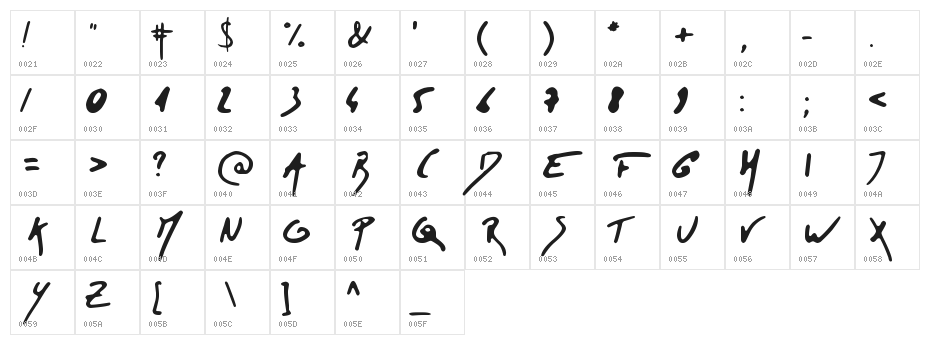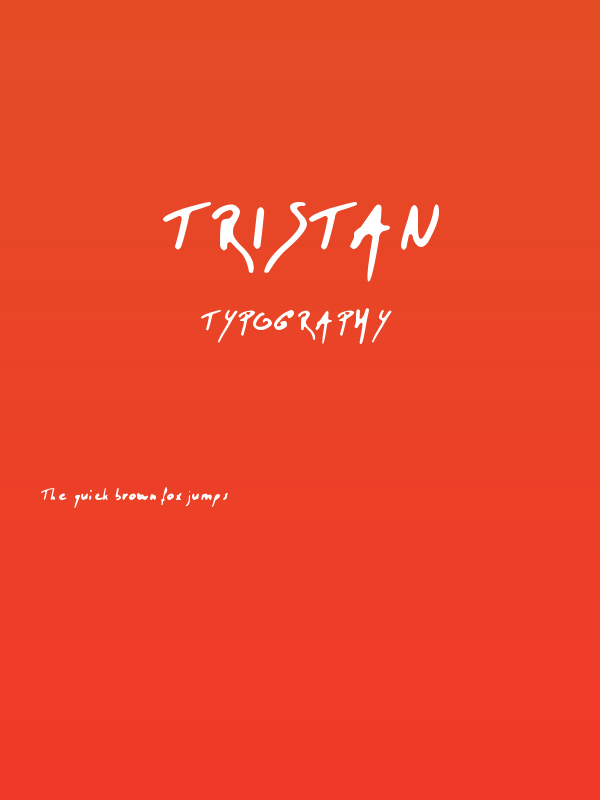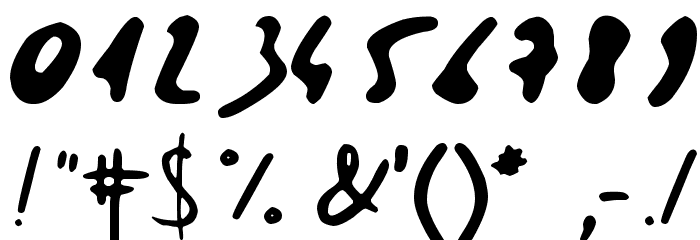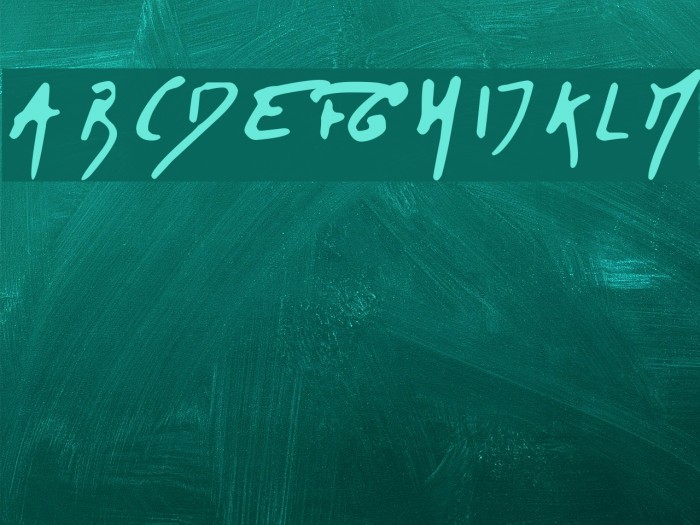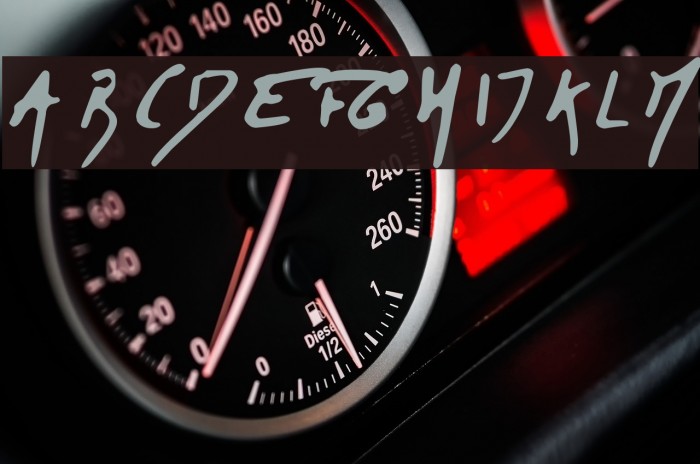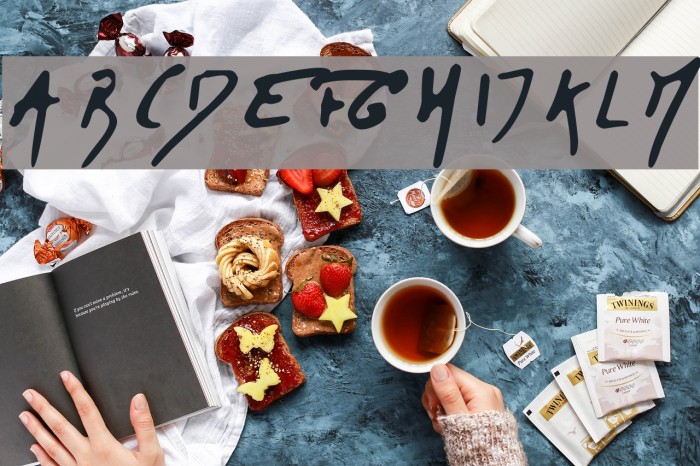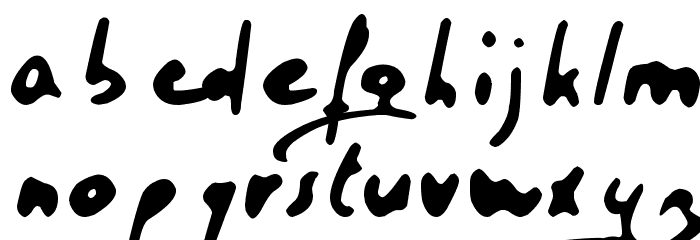
Tristan Font
Tristan Description
This font features a dynamic and expressive handwritten style, characterized by its fluid and spontaneous strokes. The uppercase letters exhibit a bold and energetic flair, while the lowercase letters maintain a consistent flow with occasional loops and curves. The numerals are distinct and maintain the same lively style, ensuring readability. Special characters are crafted with the same attention to detail, adding to the font's cohesive appearance. The overall impression is one of creativity and movement, making it suitable for projects that require a personal touch.